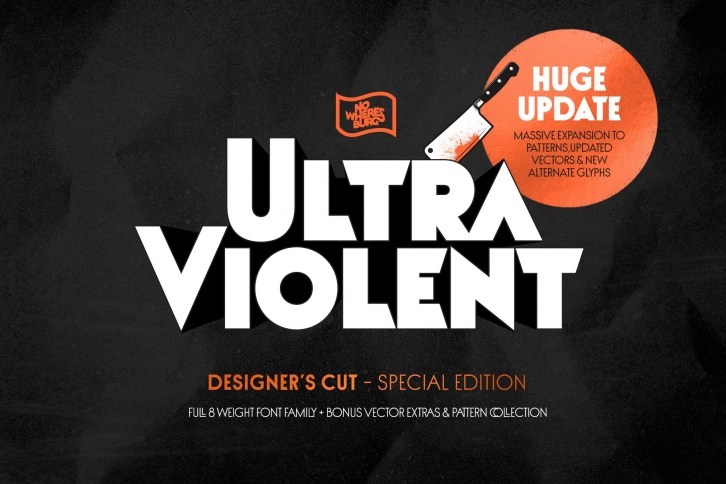
- Updated characters including new numeral & ampersand alternates
NWB Ultraviolent – Designer's Cut (Special Edition) is an 8 weight geometric sans-serif display typeface inspired by the poster type of A Clockwork Orange. It's design combines the aesthetics of Futura and the complex ligature structures of Avant Garde with a clean, modern spin to create a quirky, yet stylish and refined look. In addition to 176 ligatures it also features alternate characters for "A", "Q" and two special alternate "O" glyphs only available in this package.
- Uppercase & Lowercase (small caps)
- Standard & Discretionary Ligatures
- Alternate glyphs ( ss03 "O" glyph only available in the Designer's Cut)